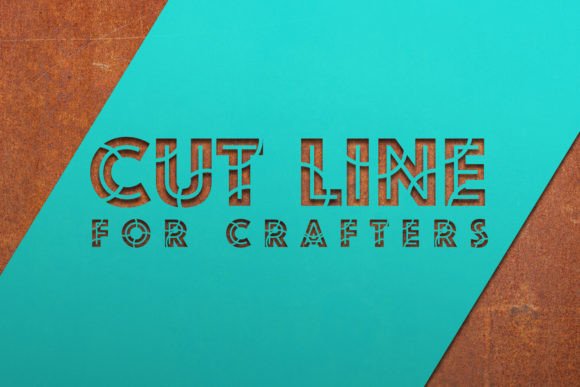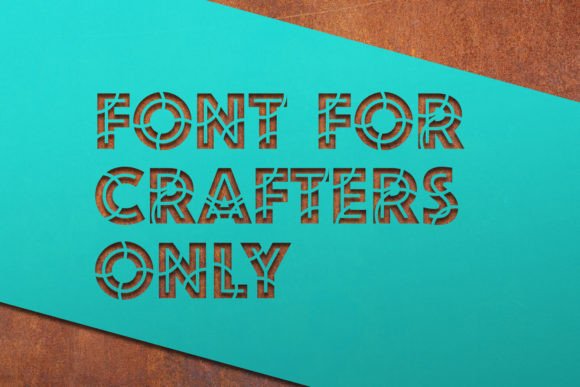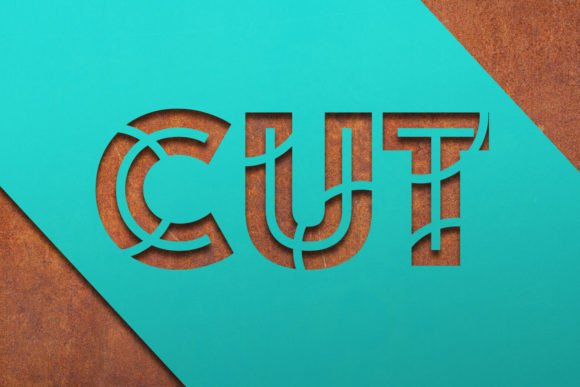
Cut Line Font
About the Cut Line Font
From logos to headlines, the Cut Line Font is the perfect choice for making a lasting impression. Cut Line is a special font designed for laser and paper cutting. Its letters are bold and easy to cut out, with smooth edges and clear shapes. The font is strong, so it stays together well when you cut it, making it perfect for craft projects like signs, stencils, or cards.
Cut Line’s strong, graphic nature makes it ideal for headlines, logos, and short impactful statements in branding materials. It excels in signage, posters, and packaging where bold readability is paramount. However, its weight and lack of fine detail make it unsuitable for body text or UI elements requiring high legibility at smaller sizes.
The font projects a bold and confident personality, lending itself well to projects needing a strong visual presence. Brands targeting a modern, edgy, or even slightly industrial aesthetic would find it particularly effective.
Pairing Cut Line with a clean sans-serif like Open Sans for body copy provides excellent contrast and readability. For a more playful feel, consider pairing it with a rounded geometric sans-serif. A simple serif like Merriweather could also work well to add a touch of classic sophistication.
Cut Line Font Usage Examples
Cut Line Font Example